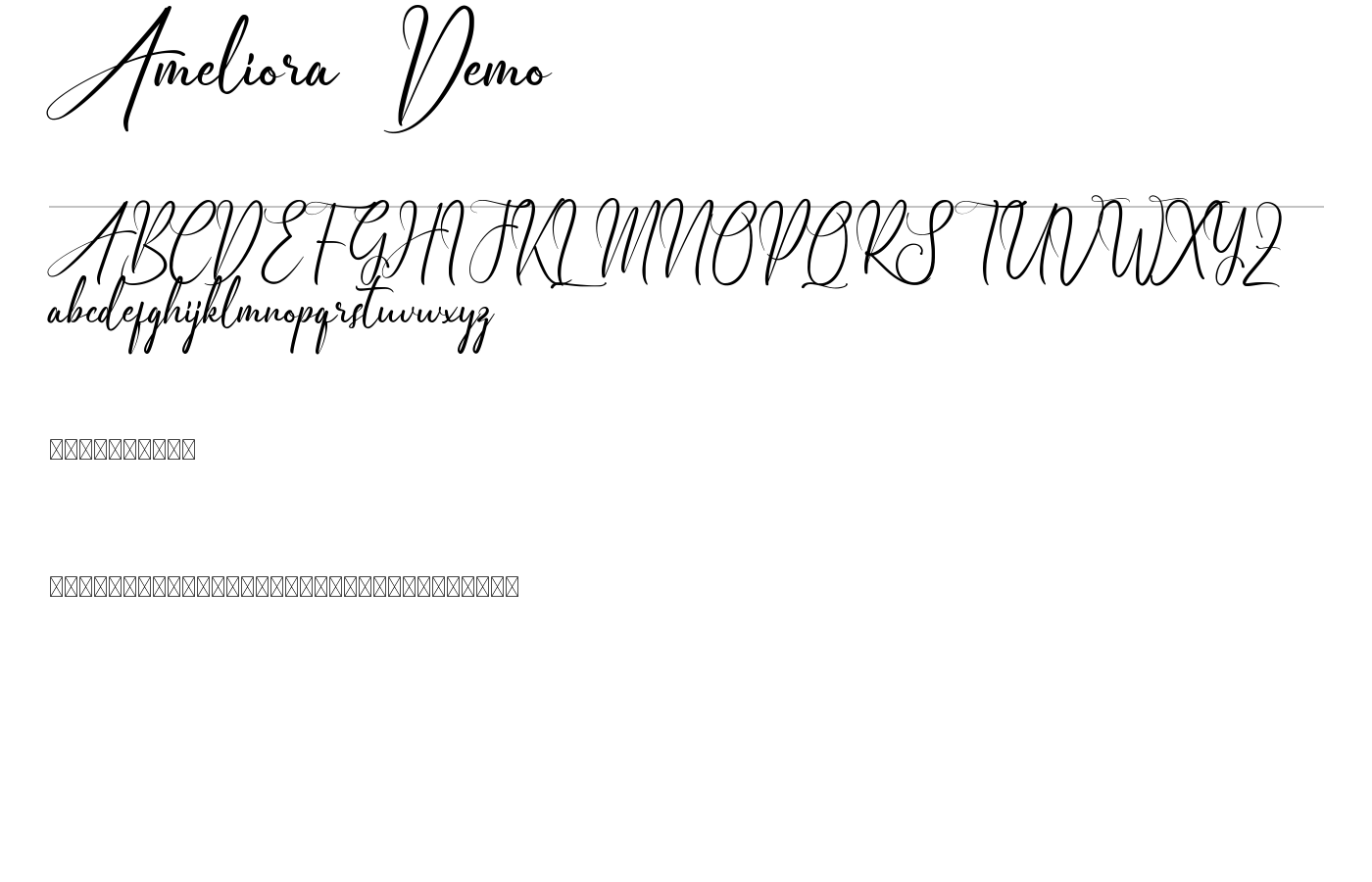
Ameliora Demo is an elegant script font characterized by its delicate, flowing strokes and high contrast between thin and thick lines. Its tall, slender letterforms feature graceful loops and flourishes, giving it a sophisticated and stylish personality perfect for luxury branding, invitations, and headline use where a refined, artistic flair is desired. This font brings a sense of romance and hand-crafted beauty, making it ideal for designs that seek to communicate elegance and creativity.
Ameliora Demo Font
About Ameliora Demo Font
| Font family | Ameliora Demo Font |